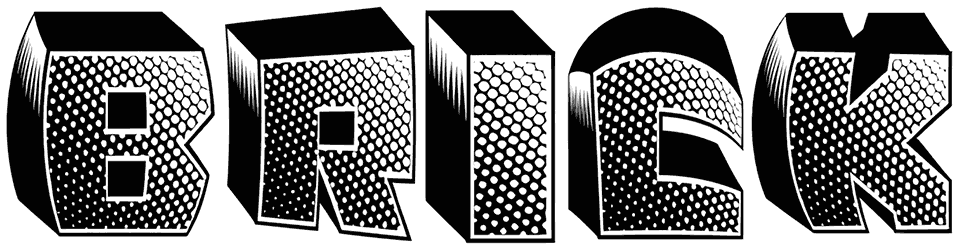
Brick Font
Brick is a fancy 3D font that is crooked and bold, but it doesn’t have lowercase letters or numbers. If you want to make a strong emotional connection with your audience, this is a fantastic choice.